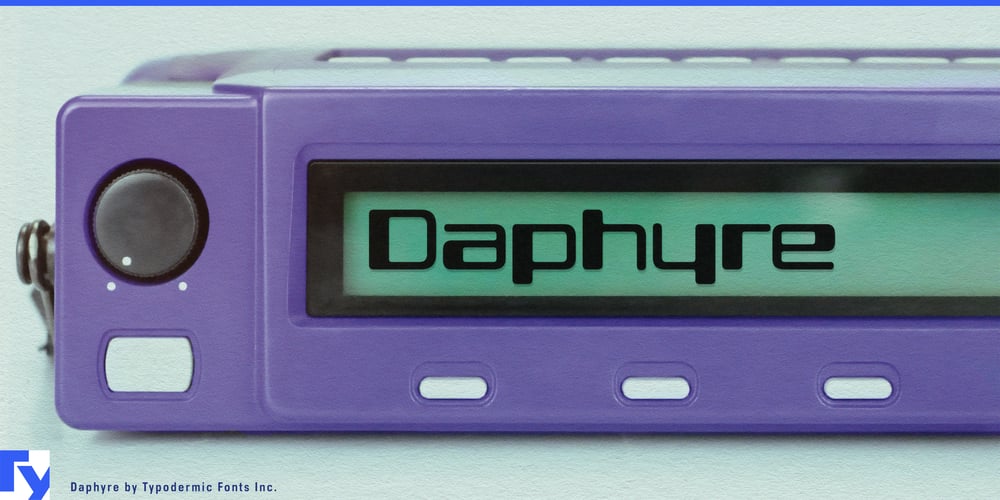
Daphyre Font Family was designed by Ray Larabie and published by Typodermic. Daphyre contains 1 styles and family package options. Welcome to the cutting edge of typography with Daphyre, a headline typeface that doesn’t just nod to the future—it defines it. This isn’t merely a font; it’s a time-bending marvel that fuses the magnetic charm of 1960s MICR-inspired display types with the bold, unapologetic aesthetics of the Y2K era. The result? A typeface that’s simultaneously retro and futuristic, familiar yet startlingly innovative.Daphyre’s design is a masterclass in refined futurism. Its soft edges whisper of technological advancement, while its techno strokes boldly proclaim a new era of typographic expression. The wide, stark letterforms and massive x-height create a commanding presence that demands attention, whether splashed across a magazine cover or illuminating a digital billboard. Unlike its more playful MICR-inspired counterparts, Daphyre takes a more austere approach. It strips away the zany in favor of sophistication, emphasizing vertical strokes that give each character a statuesque quality. This is a typeface that doesn’t need to shout to be heard—its very presence speaks volumes.Daphyre isn’t just visually striking; it’s a linguistic polyglot. Supporting an impressive array of writing systems including Latin-based European, Vietnamese, Greek, and most Cyrillic-based languages, it ensures your message maintains its futuristic edge. From Afrikaans to Zulu, Daphyre speaks the language of tomorrow. Imagine the possibilities: sleek logos for cutting-edge tech startups, headlines that pop off the page in luxury magazines, or signage for high-end automotive showrooms. Daphyre excels in conveying the essence of high-end electronics, opulent weaponry, and luxury vehicles. But don’t let these suggestions limit you—Daphyre is a canvas for your imagination, ready to elevate any design concept to new heights.This isn’t just a typeface; it’s a statement. It says, “I’m not just keeping up with the future—I’m shaping it.” Whether you’re crafting a brand identity that needs to exude sophistication or designing a user interface that screams “next-gen,” Daphyre provides the typographic gravitas you need.So why settle for the mundane when you can step into tomorrow? Embrace Daphyre and watch as your designs transform from ordinary to extraordinary. It’s more than a font—it’s a portal to a world where typography breaks free from the constraints of the present and dances on the edge of what’s possible. Download Daphyre today and give your projects the futuristic flair they deserve. Remember, in the realm of design, the future isn’t just coming—with Daphyre, it’s already here.